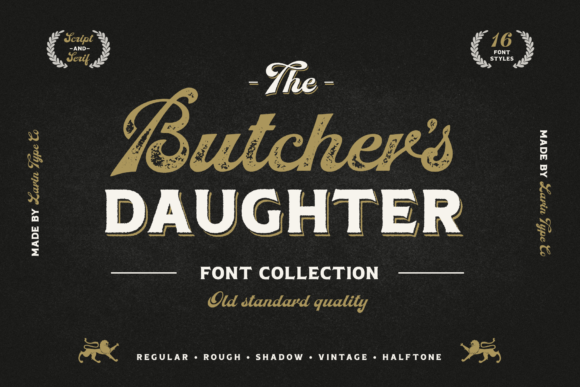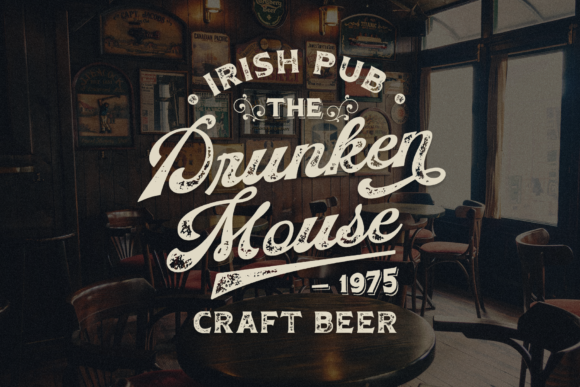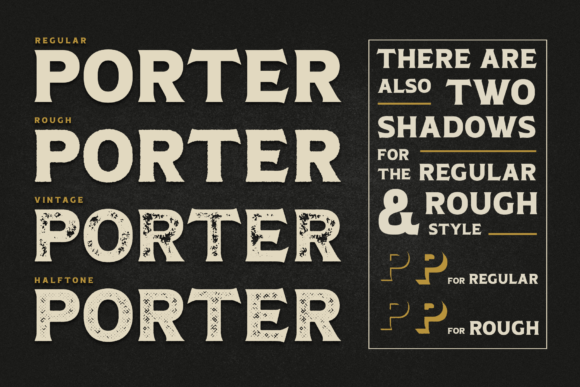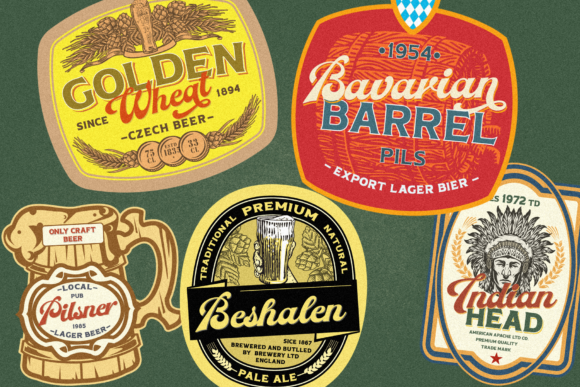
Butcher’s Daughter Font
About the Butcher’s Daughter Font
Unleash your creativity with Butcher’s Daughter Font, a versatile font perfect for a wide range of applications. Butcher’s Daughter is a cool, bold and vintage styled display font. This font is imposing and features uniquely shaped letters, and as a result, it will easily match a wide range of creations that require a distinct touch.
Butcher’s Daughter excels in headlines, short impactful titles, and logos where its bold vintage style makes a statement. It’s ideal for branding projects aiming for a retro or edgy feel, particularly in food, beverage, or apparel industries. Avoid using it for body text or longform content; its unique letterforms can hinder readability at smaller sizes.
This font’s strong personality pairs well with clean sans-serif fonts like Montserrat or Open Sans for balance. For a more vintage-inspired feel, consider pairing it with a classic serif like Garamond or Didot. A script font such as Great Vibes could add a touch of elegance, but use it sparingly to avoid visual clutter.
The overall personality is bold, confident, and slightly rebellious, conveying a vintage-inspired energy with a modern twist. Its imposing nature suggests strength and individuality.